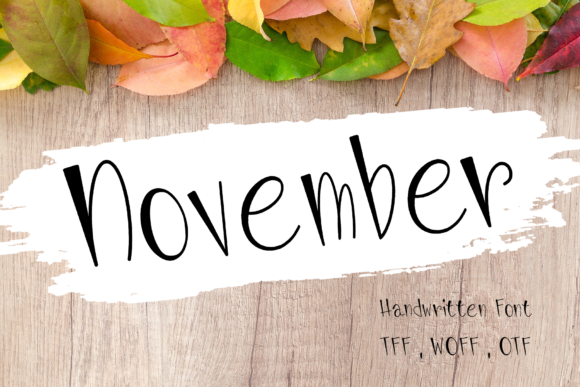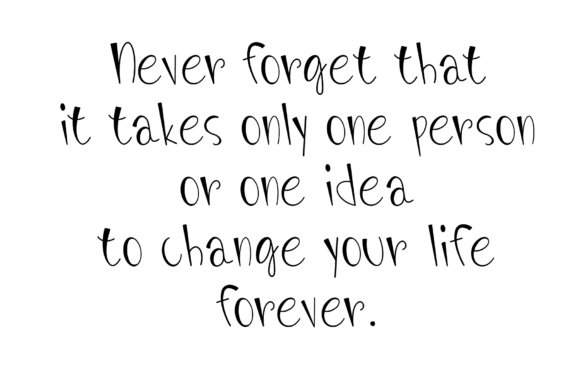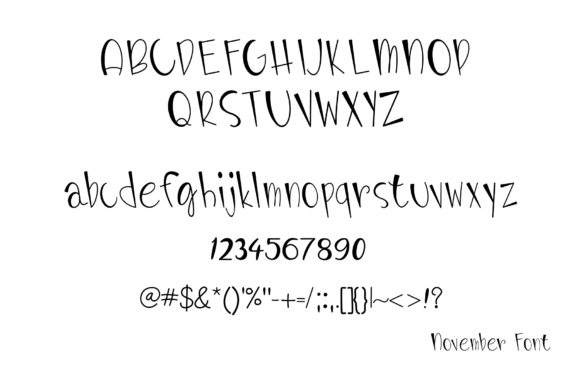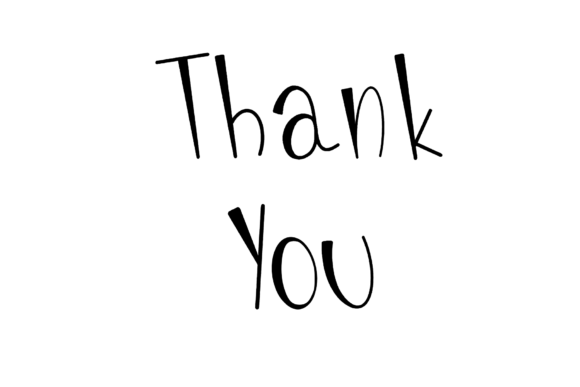
November Font
About November Font
Novenber is a fun and quirky handdwritten font. This font is perfect for : logos , branding , greeting cards, posters, magazines, social media, planner prints and websites.